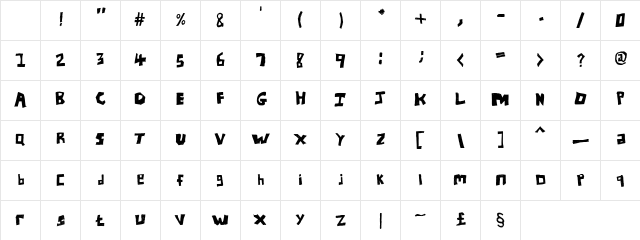
Complete UNLtd Bold glyph index. Displaying only characters natively supported by UNLtd Bold font.
UNLtd is a composed and adaptable typeface that performs quietly and consistently across a wide range of design contexts. Its bold stroke weight gives it real presence on the page.